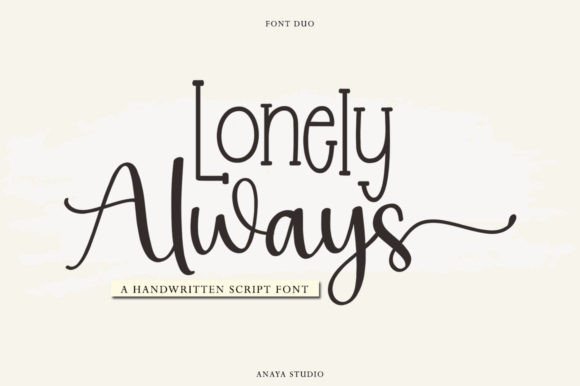
Introducing Lonely Always, a captivating handwritten font duo, meticulously crafted to infuse your designs with a touch of sophistication and playfulness. Embark on an enchanting journey with these two fonts, designed to seamlessly complement each other. Whether you use them together or separately, they'll elevate your projects to new heights.
Meet Lonely and Always, the dynamic duo that will make your designs shine. Lonely, the primary font, exudes a graceful and elegant charm, while Always, its playful companion, adds a touch of whimsical flair. Together, they create a harmonious blend of elegance and fun, ensuring your designs stand out from the crowd.
Effortlessly express your creativity with Lonely Always. Its single-path design and PUA code allow for easy access to all glyphs and sweeps, making it a breeze to add intricate details and flourishes to your designs. Unleash your imagination and let your creativity soar with Lonely Always!
Dive into a world of endless possibilities and transform your design dreams into reality. With Lonely Always, the possibilities are limitless. Craft stunning logos, heartfelt invitations, eye-catching social media graphics, and so much more. Its versatility knows no bounds, making it the perfect choice for any project that calls for a touch of sophistication and whimsy.
Don't miss out on this dynamic font duo that will revolutionize your design journey. Lonely Always is the perfect choice for adding a unique touch to your creative projects. Embrace the beauty of calligraphy and let your designs bloom with grace and charm.